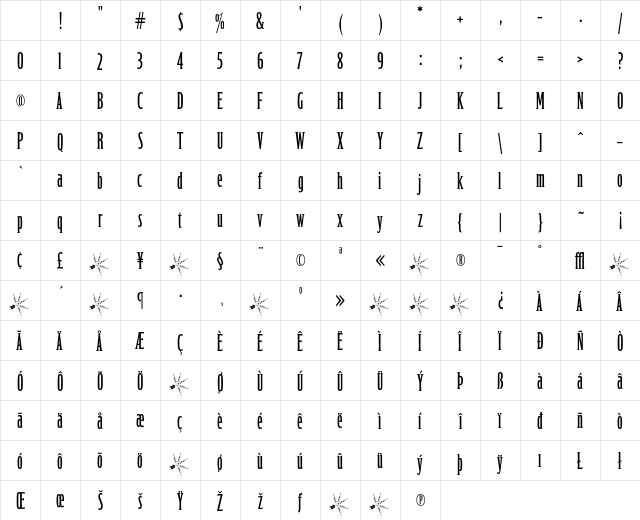
Lafayette is a composed and adaptable typeface that performs quietly and consistently across a wide range of design contexts. Its narrow stance lets it pack a punch even in space-constrained designs.